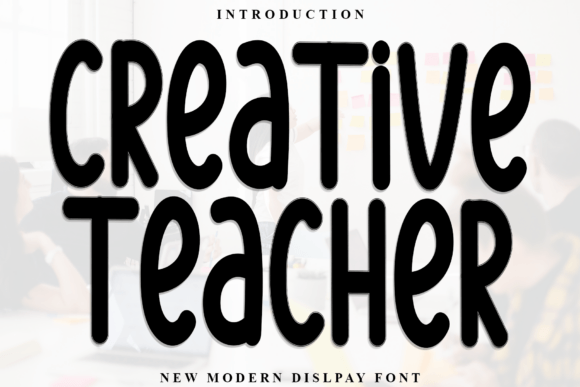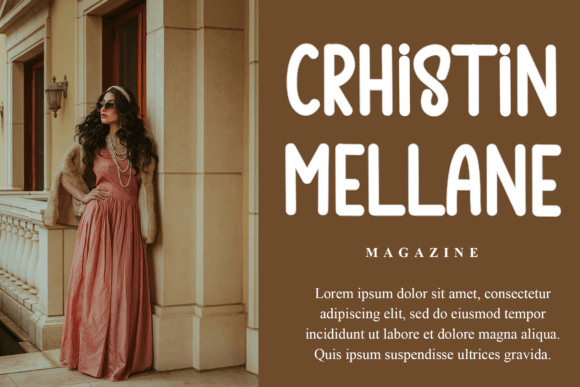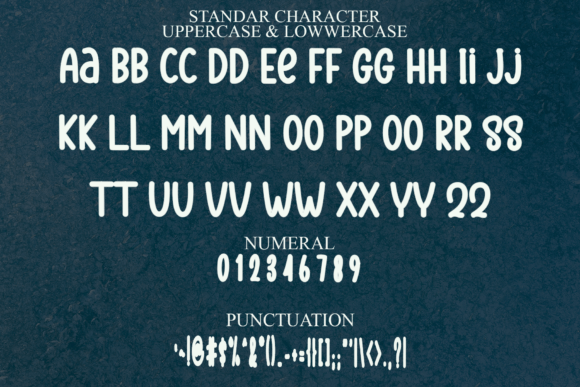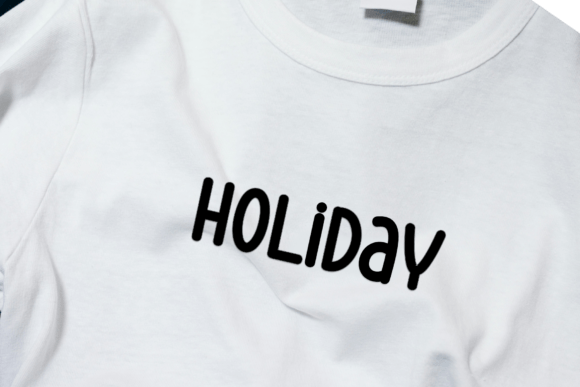
Creative Teacher Font
About the Creative Teacher Font
Introducing the Creative Teacher Font, a beautifully crafted typeface designed to elevate your creative projects. Creative Teacher font is a very beautiful font. Masterfully designed to become a true favorite, this font has the potential to bring each of your creative ideas to the highest level!
Its friendly, slightly playful personality makes it ideal for children’s books, educational materials, branding for schools or creative businesses, and cheerful posters. It works well in headlines and short text blocks, adding a touch of whimsy without overwhelming the design. However, its decorative nature makes it less suitable for body text or UI elements where readability is paramount.
For a balanced aesthetic, pair Creative Teacher with a clean sans-serif like Open Sans for body copy, or a slightly more playful script font like Pacifico for added emphasis in headlines. A geometric sans-serif like Montserrat could provide a modern contrast, grounding the design and preventing the overall feel from becoming too overwhelming.
Consider its limitations for lengthy content. Its charm lies in its application to projects that benefit from a cheerful and approachable aesthetic, rather than those requiring strict professionalism or extensive readability.
Creative Teacher Font Usage Examples
Creative Teacher Font Example